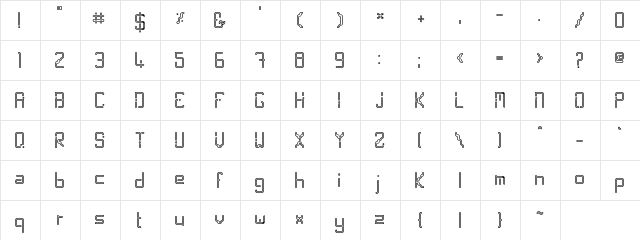
Spacenoid Regular
| Designer | rikyozone |
Design Context for Spacenoid Typeface
Spacenoid takes a measured approach to typography — its balanced proportions and neutral character make it a reliable workhorse for both digital and print work.